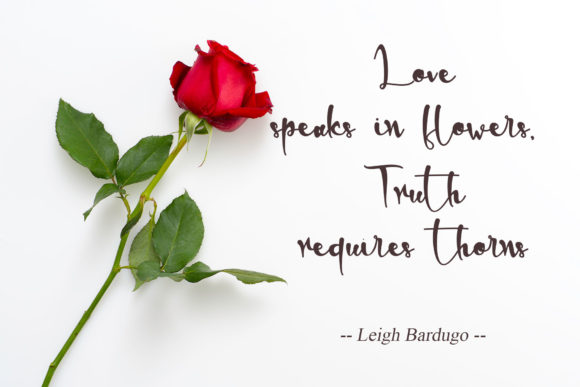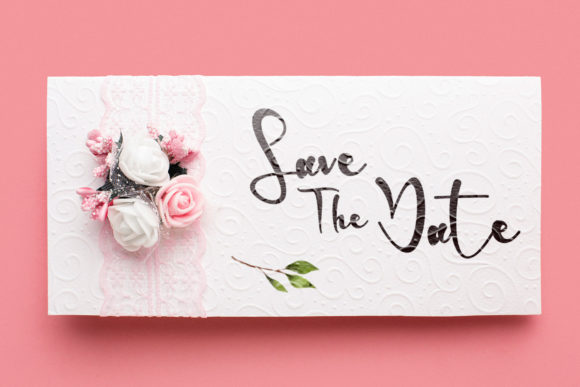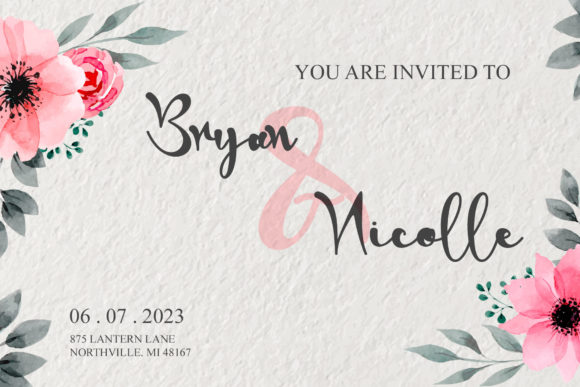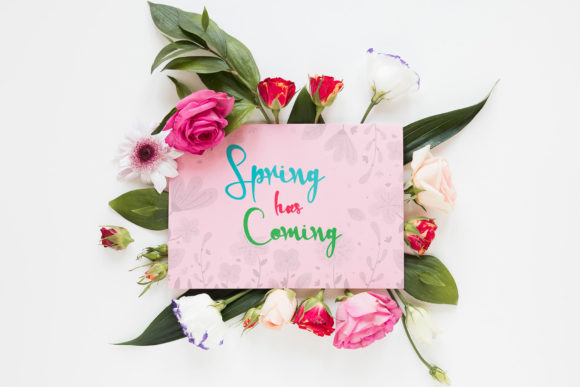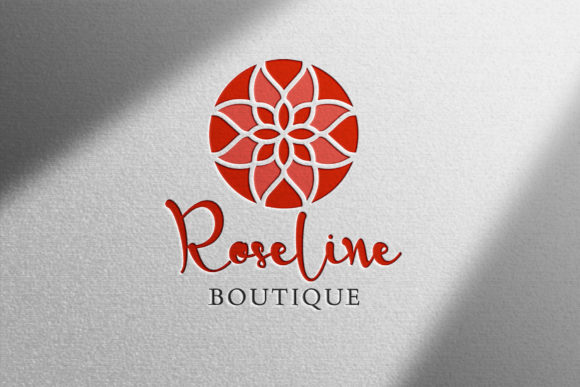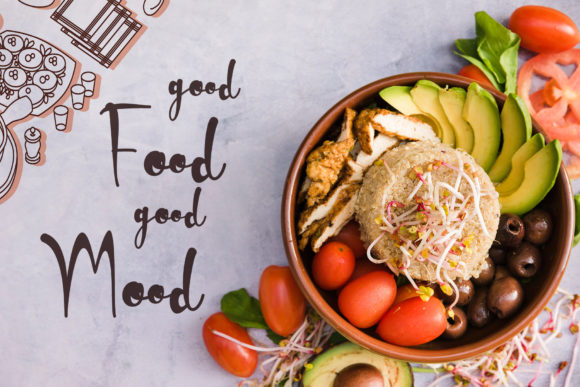
Introducing Claristta Font: A Ravishing Script Font for Designers and Crafters
Are you tired of using the same old fonts for your design projects? Look no further than Claristta Font, a stunning script font that is sure to elevate your designs to the next level. In this article, we’ll take a closer look at Claristta, exploring its features, benefits, and uses, and why it’s a must-have for designers and crafters alike.
What is Claristta Font?
Claristta Font is a beautifully crafted script font that exudes elegance and sophistication. With its neat and highly detailed design, Claristta is perfect for a wide range of design projects, from wedding invitations and party decorations to branding and advertising materials. This font is designed to make a statement, and its ravishing appearance is sure to capture the attention of your audience.
Key Features of Claristta Font
So, what sets Claristta Font apart from other script fonts on the market? Here are just a few of its key features:
- PUA Encoding: Claristta Font is PUA (Private Use Area) encoded, which means that you can access all of the glyphs and swashes with ease. This makes it easy to customize your designs and add your own personal touch.
- Highly Detailed Design: Claristta Font features a highly detailed design that is both elegant and sophisticated. Each letter and swash is carefully crafted to ensure that your designs look professional and polished.
- Neat and Organized: Unlike some script fonts that can be messy and difficult to read, Claristta Font is neat and organized, making it perfect for body text and headlines.
Benefits of Using Claristta Font
So, why should you choose Claristta Font for your design projects? Here are just a few benefits of using this amazing script font:
- Elegant and Sophisticated: Claristta Font adds a touch of elegance and sophistication to any design project. Its ravishing appearance is sure to impress your clients and audience.
- Versatile: Claristta Font is versatile and can be used for a wide range of design projects, from wedding invitations and party decorations to branding and advertising materials.
- Easy to Use: With its PUA encoding, Claristta Font is easy to use and customize. You can access all of the glyphs and swashes with ease, making it simple to create unique and personalized designs.
Uses of Claristta Font
So, what can you use Claristta Font for? The possibilities are endless! Here are just a few ideas to get you started:
- Wedding Invitations: Claristta Font is perfect for wedding invitations, with its elegant and sophisticated design.
- Party Decorations: Use Claristta Font to create stunning party decorations, including banners, garlands, and more.
- Branding and Advertising: Claristta Font is also great for branding and advertising materials, such as logos, brochures, and business cards.
| Font Name | Claristta Font |
| Author | Arkrist Letter Studio |
In conclusion, Claristta Font is a must-have for designers and crafters alike. With its ravishing script design, PUA encoding, and highly detailed features, Claristta Font is perfect for a wide range of design projects. Whether you’re creating wedding invitations, party decorations, or branding and advertising materials, Claristta Font is sure to elevate your designs to the next level. So why wait? Download Claristta Font today and start creating stunning designs that will leave a lasting impression!